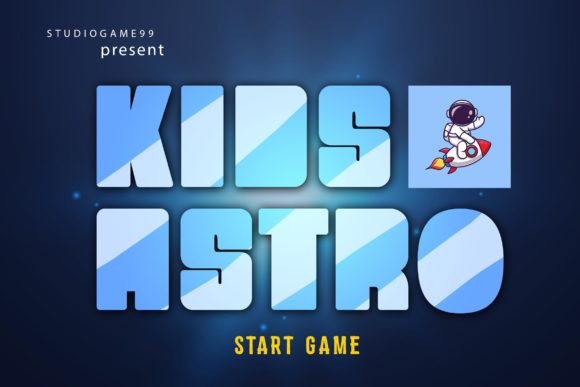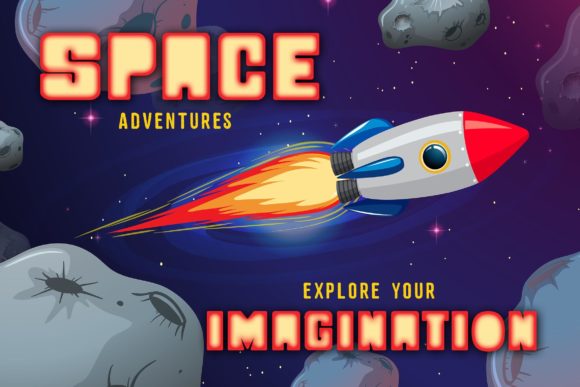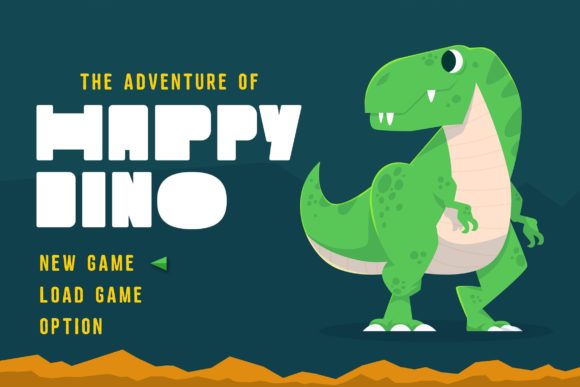
Black Block Font
Black Block is a cool, bold and thick lettered display font. Add this robotic looking font to your creations and they will instantly stand out.